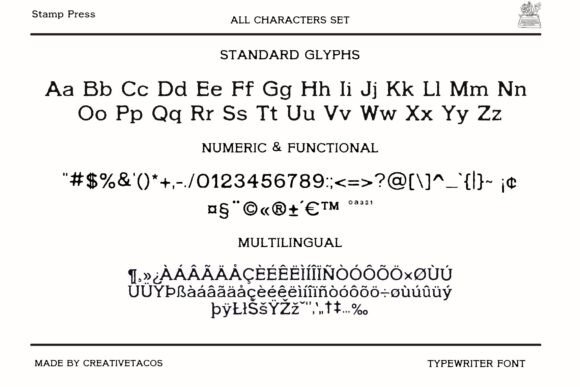
Stamp Press Font
Stamp Press is a beautifully crafted vintage typewriter font that brings the charm of retro type to modern projects. With its rough edges and imperfect letters, it mimics the authentic look of an old-fashioned typewriter.
Perfect for adding a nostalgic touch to your branding, logos, posters, invitations, and editorial designs. Stamp Press includes a full set of uppercase and lowercase letters, numbers, punctuation, multilingual characters, and special symbols to cover all your creative needs.